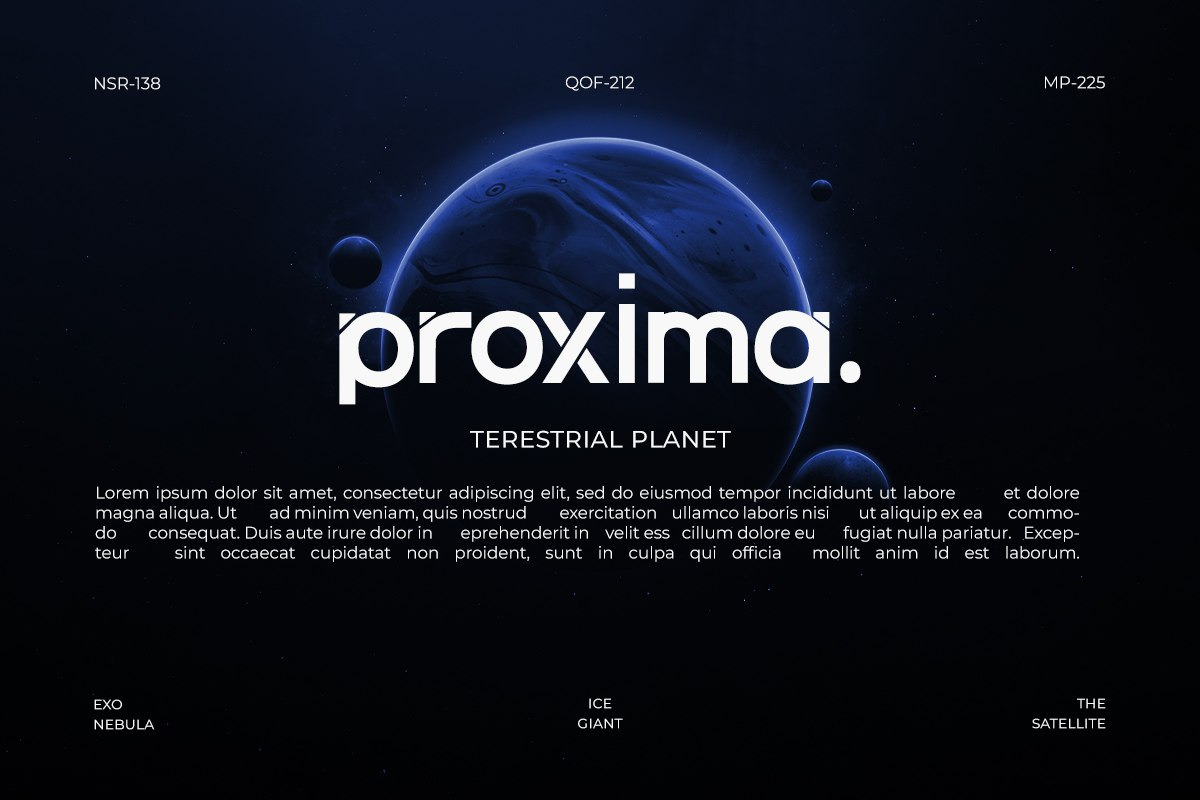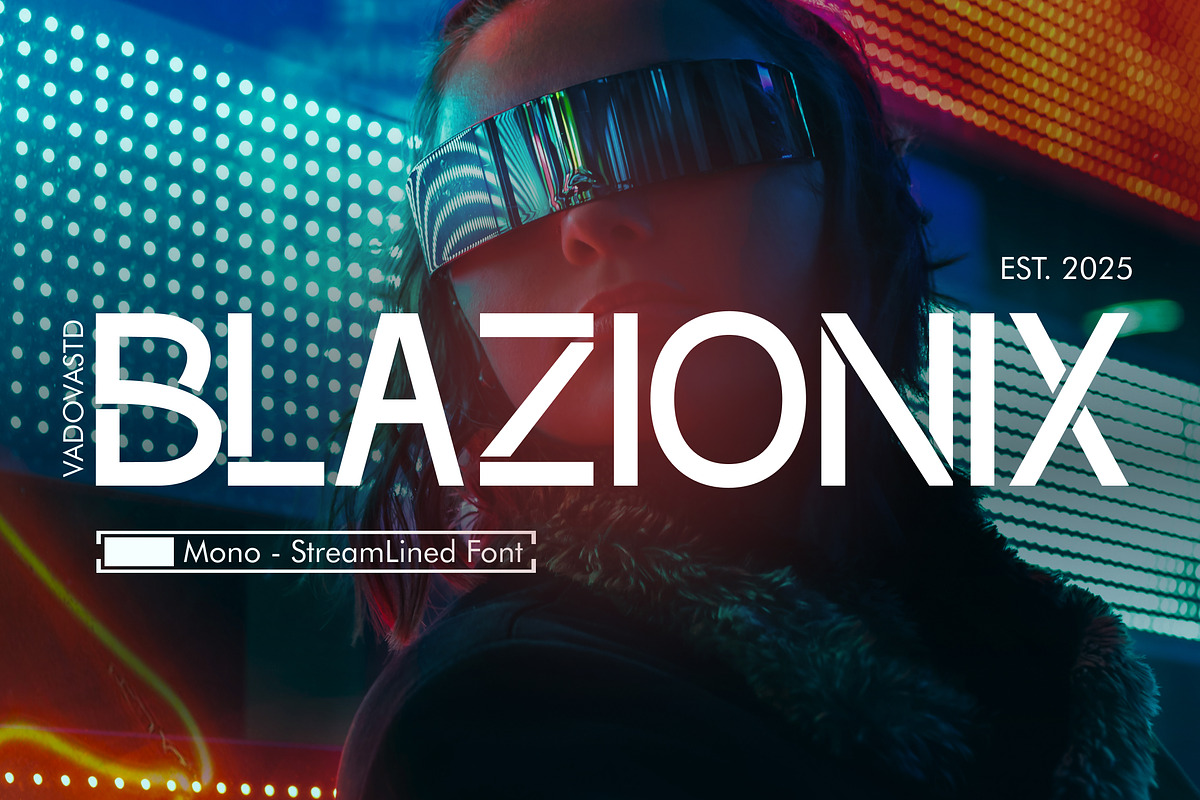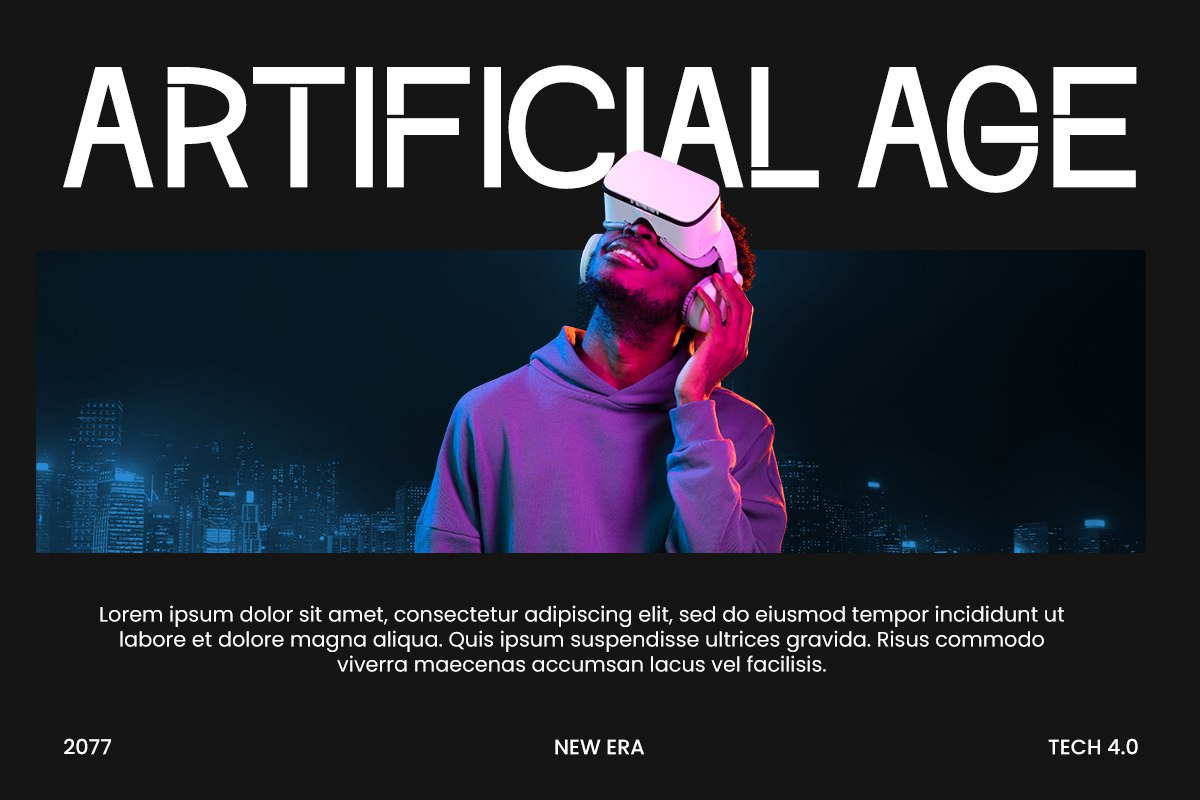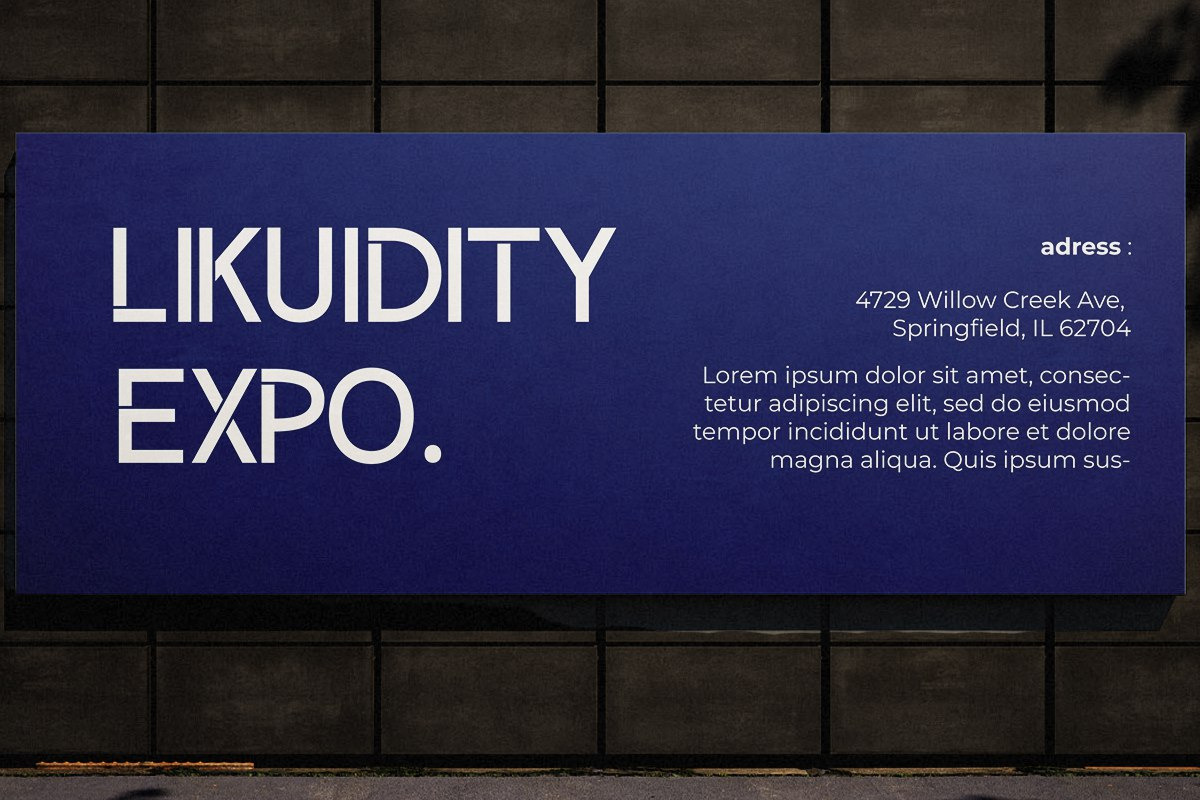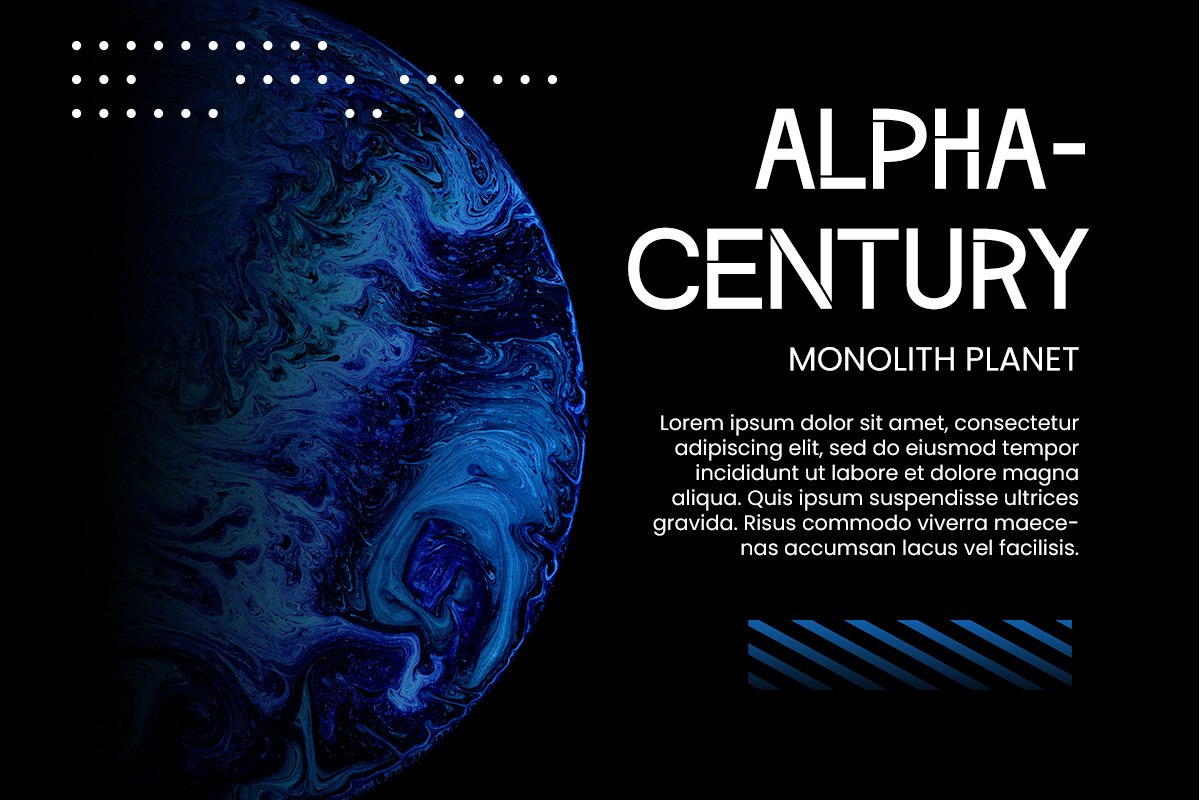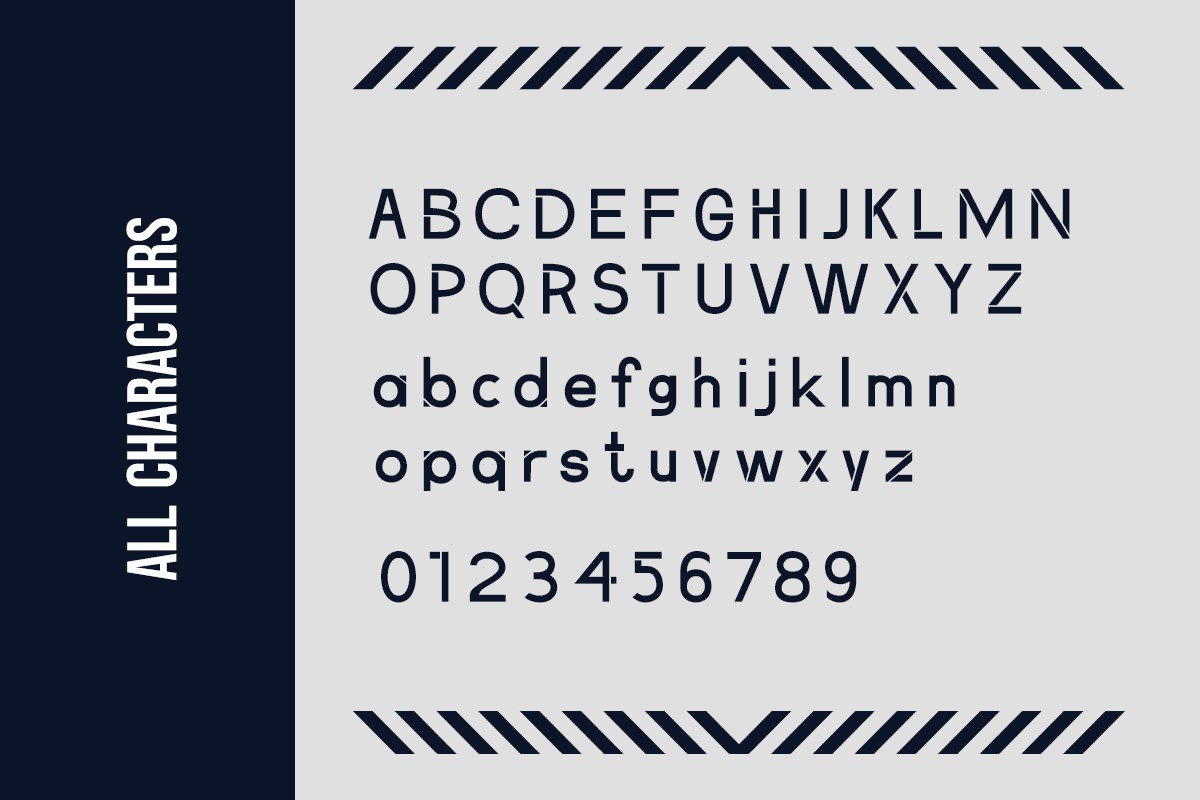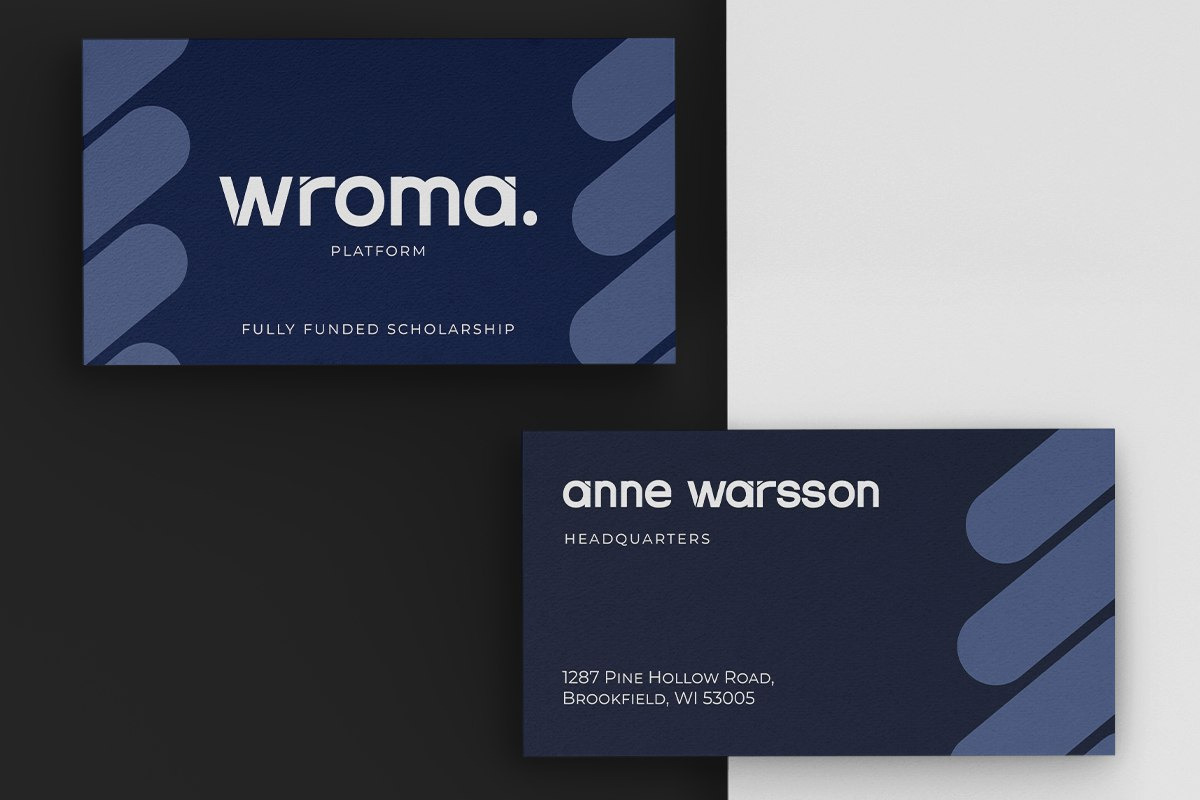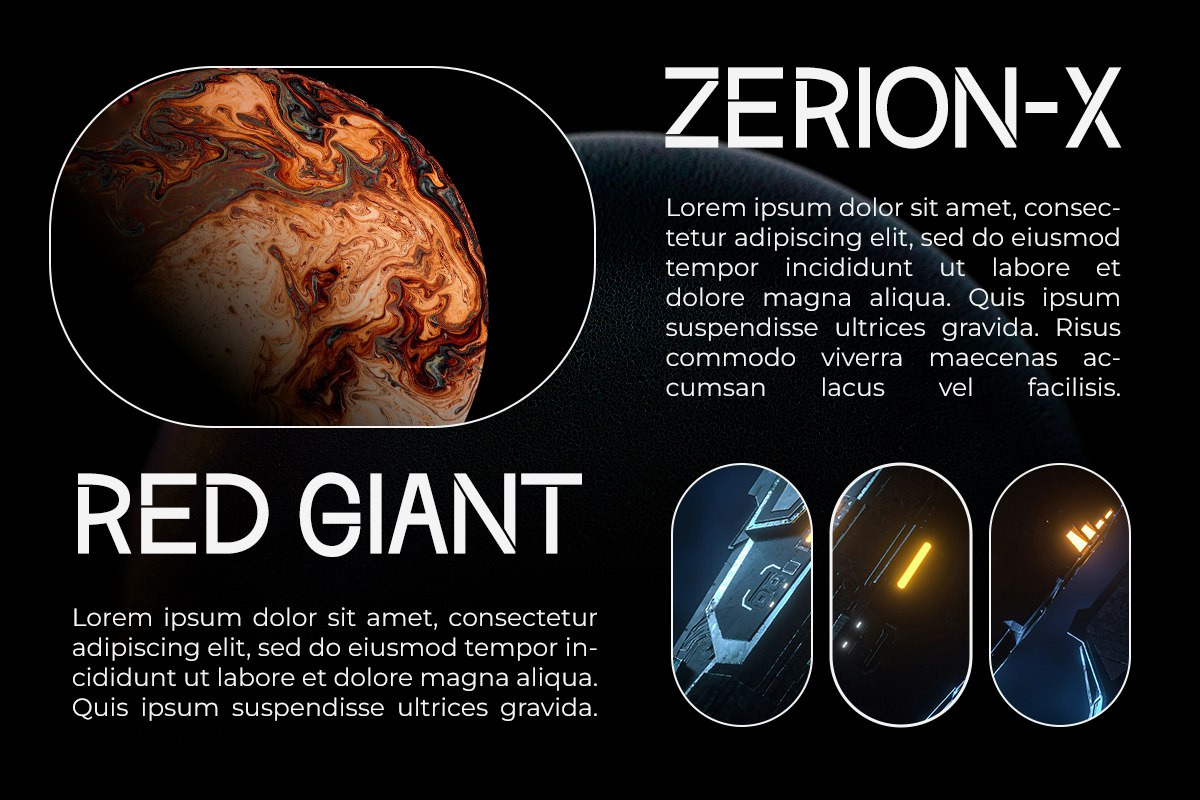
Blazionix Futuristic Font
Blazionix is a bold and streamlined mono-style display font designed for tech-forward aesthetics and futuristic themes. Inspired by cyberpunk culture, retro-futurism, and high-impact sci-fi visuals, this typeface combines geometric forms with minimal interruptions to create a sleek, high-performance look. Featuring a complete set of uppercase and lowercase characters, numbers, punctuation, and multilingual support, Blazionix is perfect for headlines, branding, and digital UI applications where clarity and impact matter.
Every character in Blazionix is engineered with precision and intention, striking a balance between readability and futuristic flair. Its monospaced nature ensures consistent rhythm across designs, making it especially effective for coding aesthetics, data-driven visuals, and sci-fi interfaces. The modular letterforms, angular detailing, and seamless alignment are ideal for high-tech presentations, startup branding, and augmented reality interfaces. From bold titles to minimal layouts, Blazionix commands attention without overwhelming the content.
- Monospaced display style optimized for futuristic clarity
- Geometric letterforms with modular, mechanical structure
- Angular cuts and stylized intersections for tech-forward aesthetics
- Suitable for both digital UI/UX and bold headline compositions
- Streamlined mono design with consistent character widths, clean geometry
- Tech startup branding and futuristic logo design
- UI/UX interfaces for apps, websites, and dashboards
- Gaming titles, esports branding, and streaming visuals
- Product packaging for gadgets, gear, and digital devices
- Virtual reality (VR), AR, and metaverse environments
Power your visuals with Blazionix a streamlined mono font built for the digital age